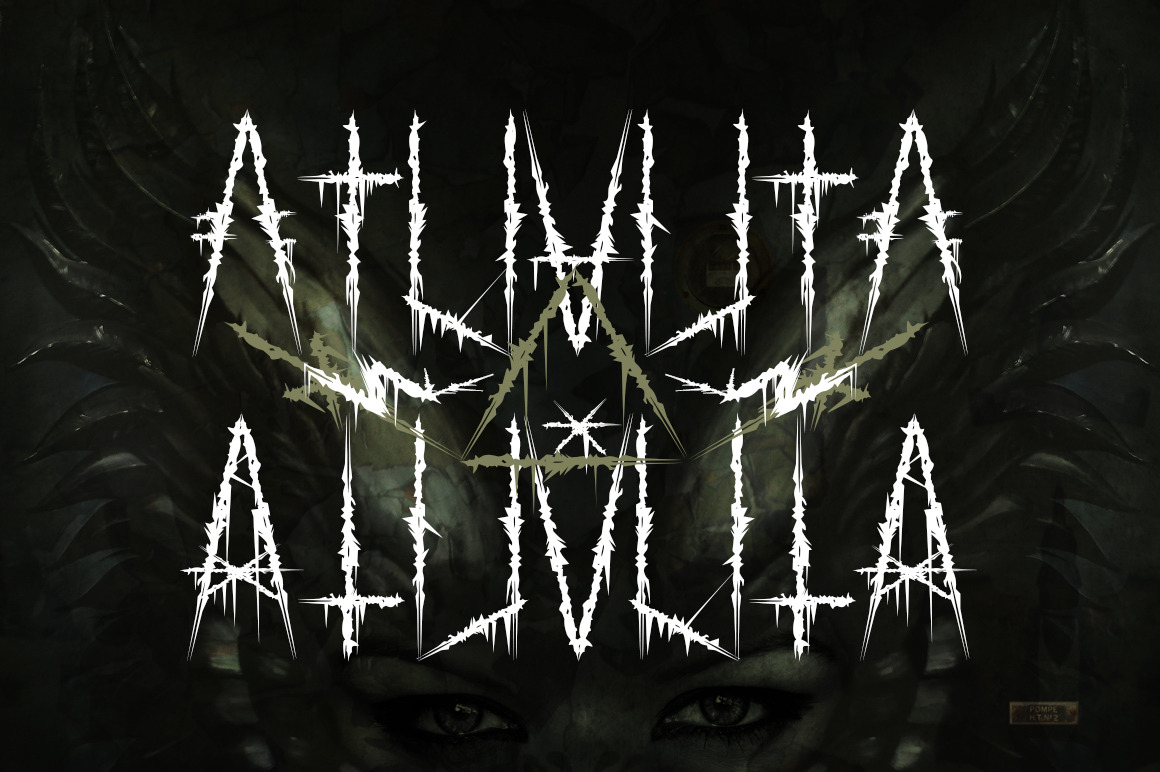
Atuvuta - font
My dear friends. Come with me and enjoy some metal music. Atuvuta is a font with style and decibels. This is a tribute of black metal lettering and culture with modern shapes.
Atuvuta have 234 glyphs, letters and symbols. Easy to combine to make some awesome black metal logo and more. Stop your circle pit and open photoshop right now.
- UPPERCASE.
- VARIANT UPPERCASE.
- Numbers.
- Roman numbers.
- Punctuations.
- Symbols.
- FUN!